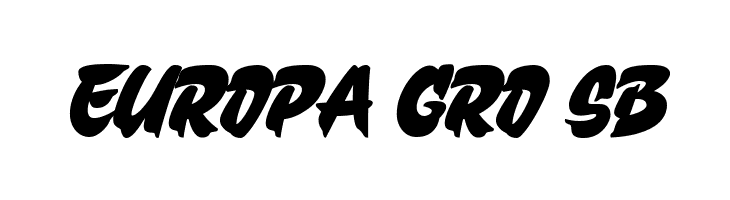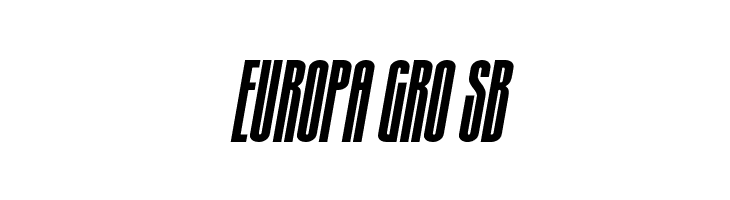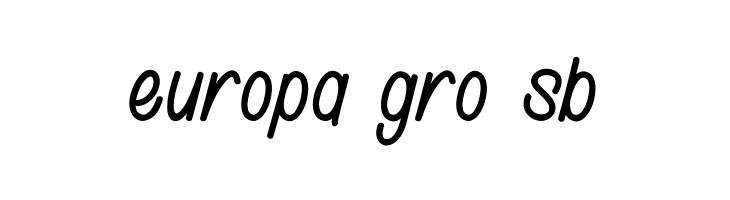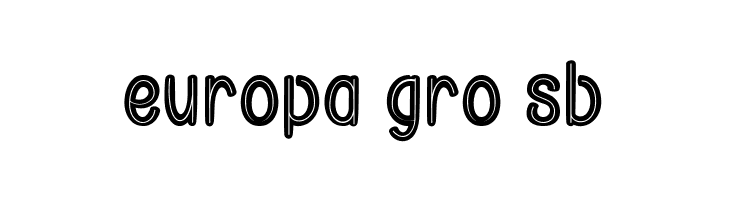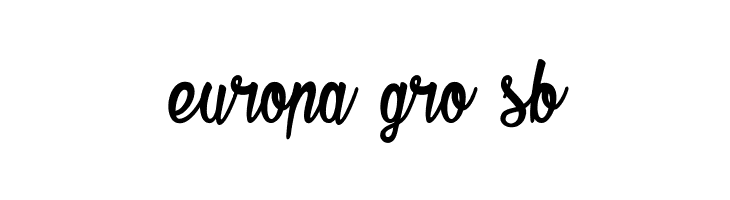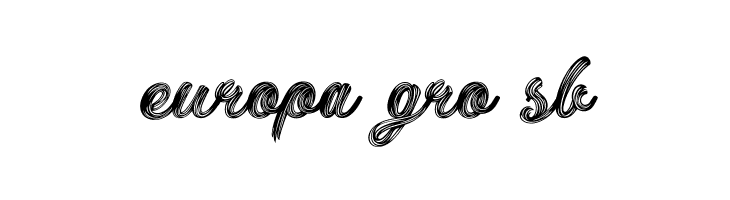
• Brenza Regular
A bold, dynamic script font with thick, flowing strokes and a cohesive, energetic style.
• My Autery
An elegant, flowing script font with a classic calligraphic style.
• Turb0lence Condensed Italic
A bold, condensed, and italic font with high contrast, perfect for striking headlines.
• Elegance_PersonalUseOnly
The image contains decorative elements, not a standard font.
• Ginette_PersonalUseOnly
A playful, handwritten font with smooth curves and a casual style.
• Anathemathise_PersonalUseOnly
A sophisticated handwritten font with elegant, flowing lines and a dynamic slant.
• Rubbers_PersonalUseOnly
A playful, bold, and outlined font with a modern and fun style.
• Seasiders_PersonalUseOnly
A playful, elegant script font with a handwritten style.
• Delich_PersonalUseOnly
A bold, decorative script font with intricate line work and flowing curves.
• Bulldozer_PersonalUseOnly
A bold, brush-stroke font with a raw, expressive style.